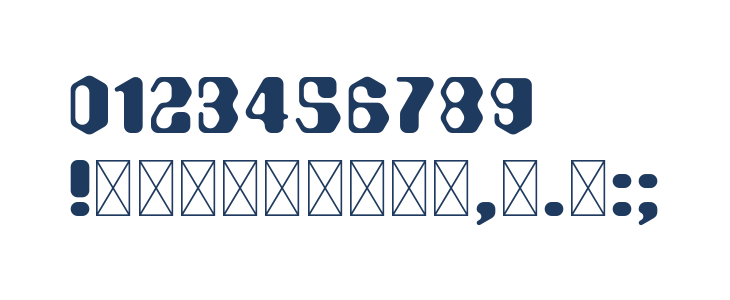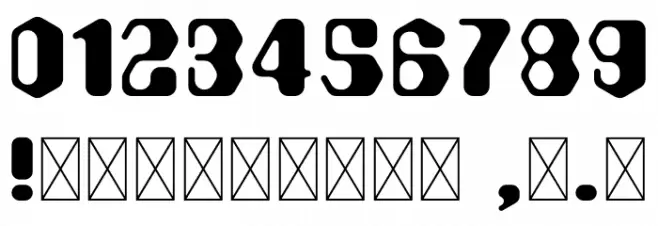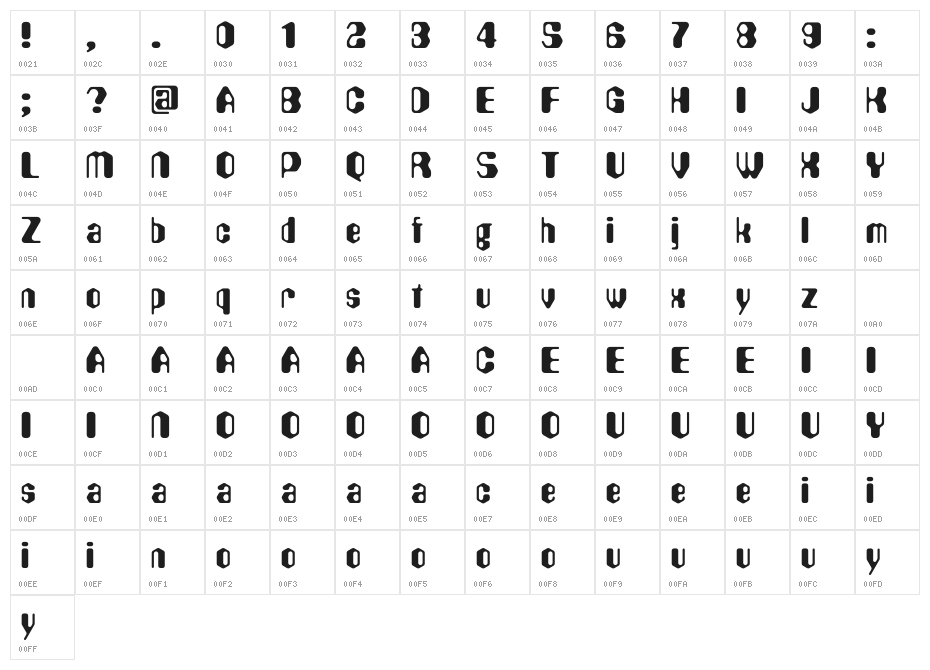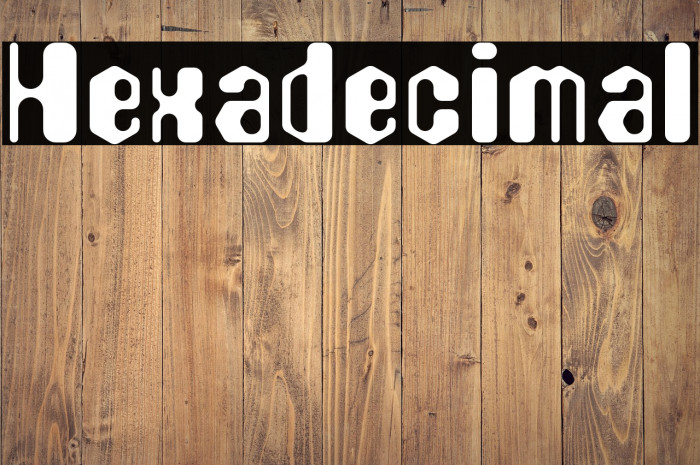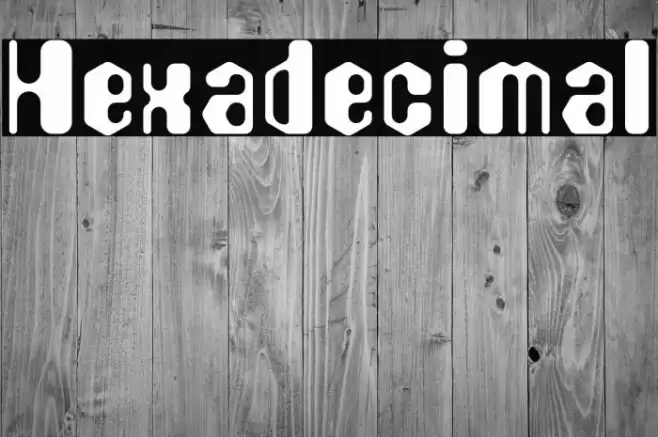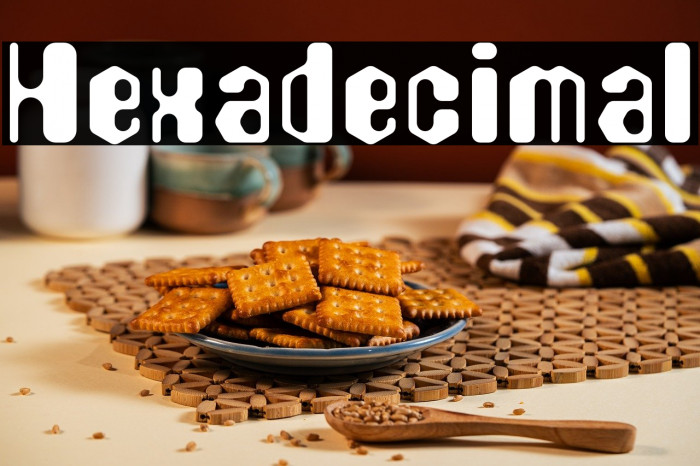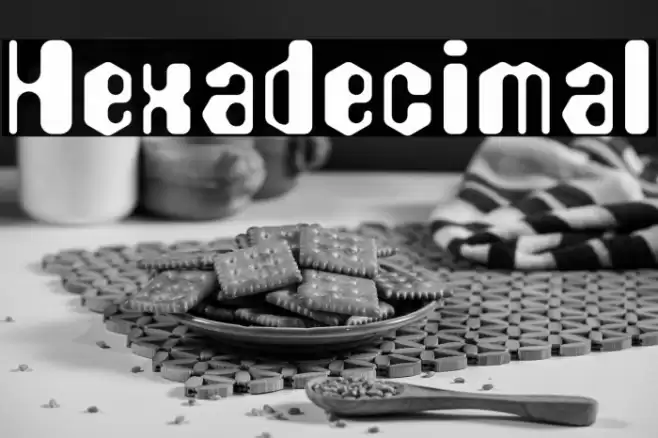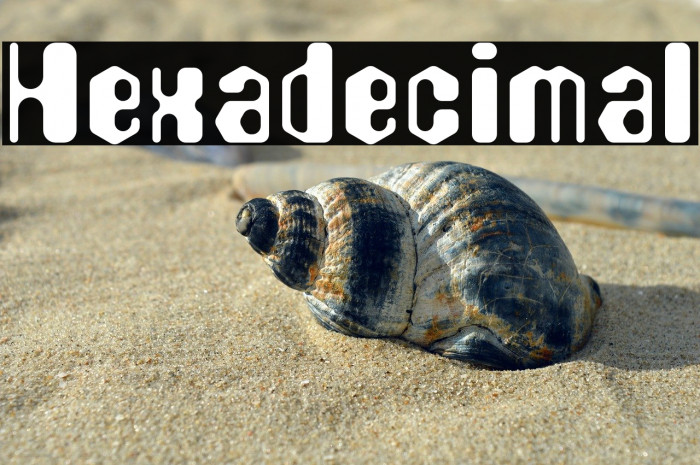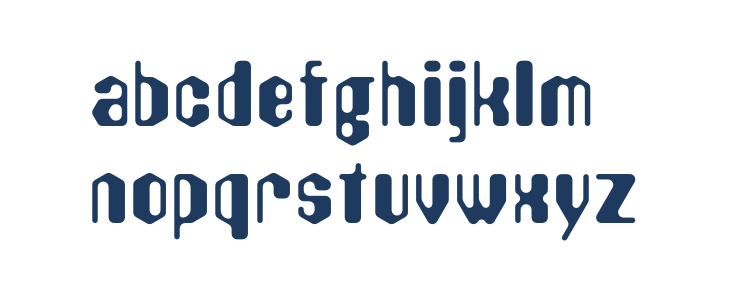
Hexadecimal Font
Hexadecimal Description
This font features a bold and geometric style with a modern twist. The characters are constructed with thick, solid strokes and have a unique, angular design that gives them a futuristic and digital appearance. The uppercase and lowercase letters maintain a consistent height, creating a uniform look across the text. The numbers and special characters follow the same design principles, ensuring a cohesive appearance throughout. The font's boldness and distinct shapes make it highly legible and impactful, suitable for various creative applications.